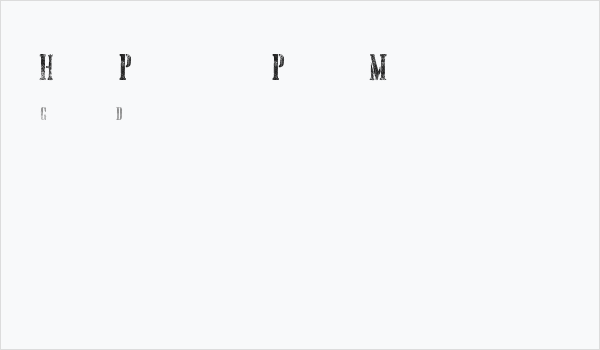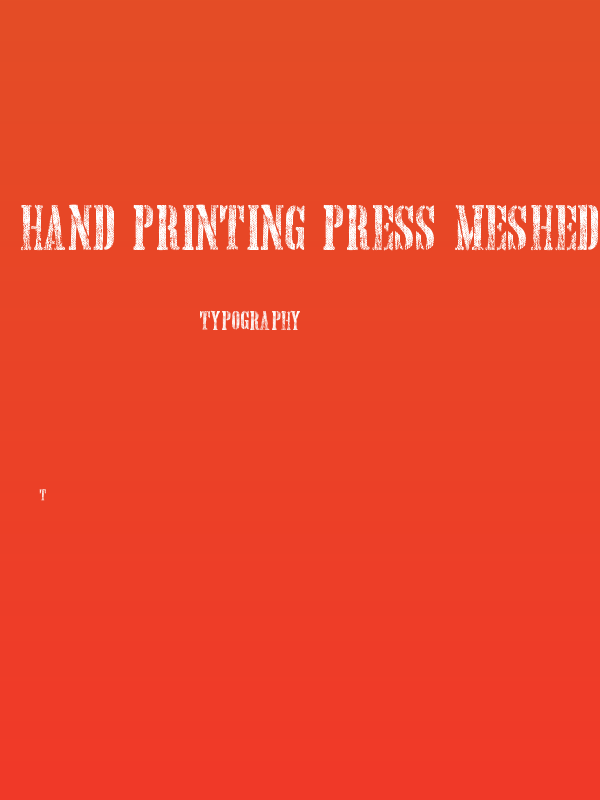
Hand Printing Press Meshed_demo Font
Hand Printing Press Meshed_demo Description
This font features a bold, distressed style reminiscent of vintage hand-printed press techniques. The characters are uppercase and display a textured, worn appearance, giving them a rugged and industrial feel. The serif design adds a touch of classic elegance, while the distressed texture provides a unique, eye-catching element. This combination makes it ideal for projects that require a strong, impactful visual statement. The font's boldness ensures readability, even with the intricate detailing of the distressed effect.
| Proposed Projects | Ideal for posters, branding, packaging, and any design requiring a vintage or industrial aesthetic. |